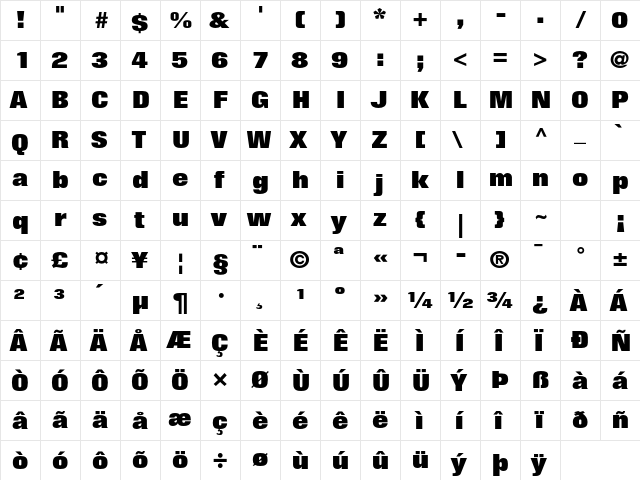
Folio Std Extra Bold
| Designer | Konrad F. Bauer, Walter Baum |
Design Context for Folio Std Typeface
Folio Std is a composed and adaptable typeface that performs quietly and consistently across a wide range of design contexts. The heavy weight commands attention and anchors typographic hierarchies.